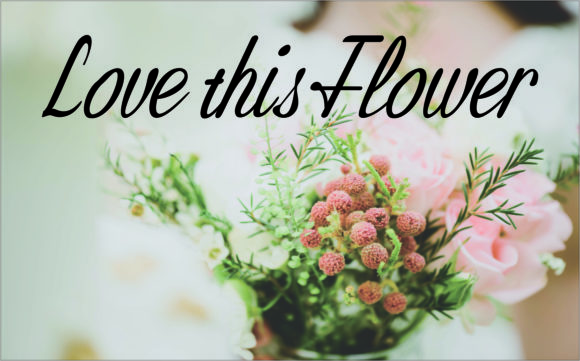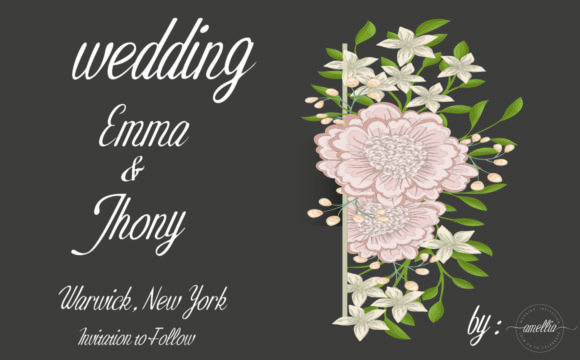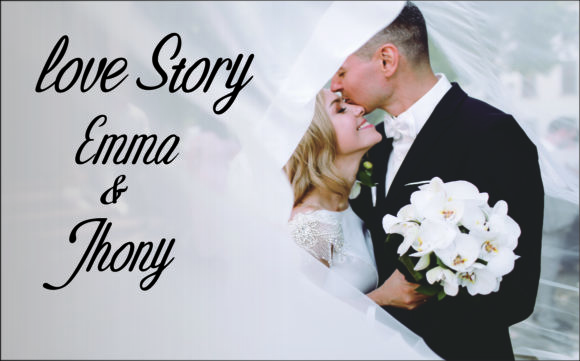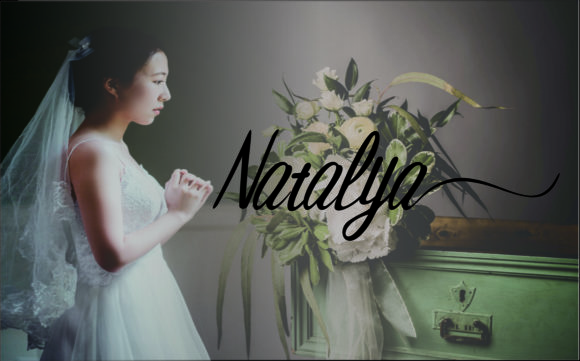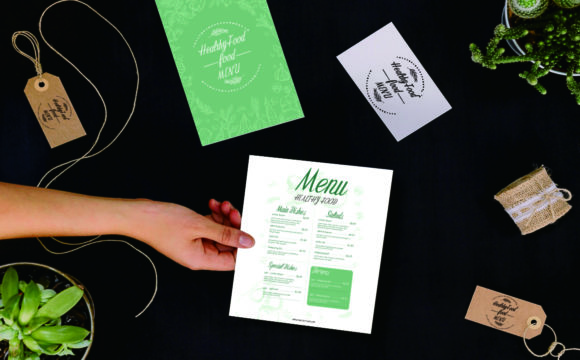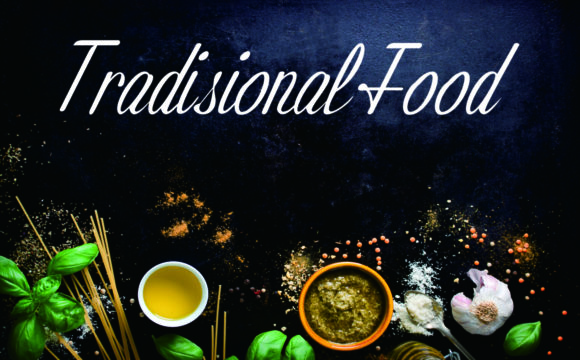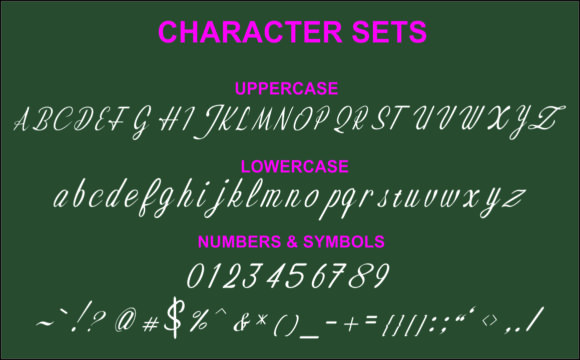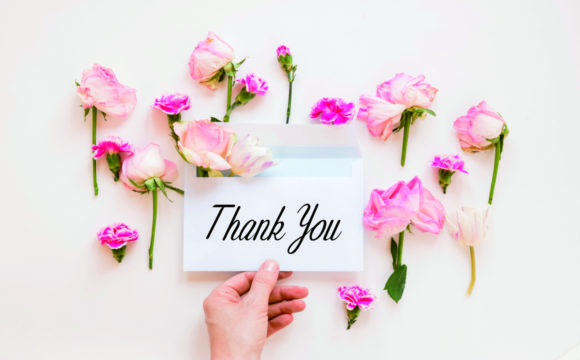
HomeScript FontsNatalya Font Script Fonts Natalya Font FacebookXPinterestWhatsApp Decorative watercolor background in shades of pink and purple Natalya Font Poster 2 Natalya Font Poster 3 Natalya Font Poster 4 Natalya Font Poster 5 Natalya Font Poster 6 Natalya Font Poster 7 Natalya Font Poster 8 Natalya Font Poster 9 About Natalya Font Natalya updates classic calligraphy with a modern twist. It will put a unique twist on any design idea! DOWNLOAD ON CREATIVE FABRICAThis font is sold and delivered by Creative Fabrica. Font Canyon may earn a commission if you buy through this link. People also explored Inquisitive Font Submaster Font Honey Lollipops Font Martha Font Jadul Font Bellia Maddison Font Morepling Font Senada Font Rockorn Font 311 0 TagsNatalya Font Previous articleTuesday FontNext articleSribu Font LEAVE A REPLY Cancel reply Comment: Please enter your comment! Name:* Please enter your name here Email:* You have entered an incorrect email address! Please enter your email address here Website: Save my name, email, and website in this browser for the next time I comment. Personal Use Free Fat Max Personal Use Free Read more about this font Marthissa Personal Use Free Read more about this font Baby Mollusca Personal Use Free Read more about this font Vanchrome Personal Use Free Read more about this font BLOG Exploring Font Trends Shaping Communication in the Digital Era Fonts, like all design elements, are subject to trends. They play a crucial role in communicating a brand's personality,... Where to Buy American Fonts Online in 2024 How to Install and Use Fonts on Windows, macOS, and Web Projects To increase your work productivity, choose the most readable fonts.